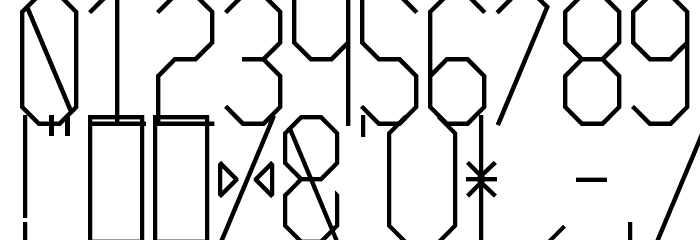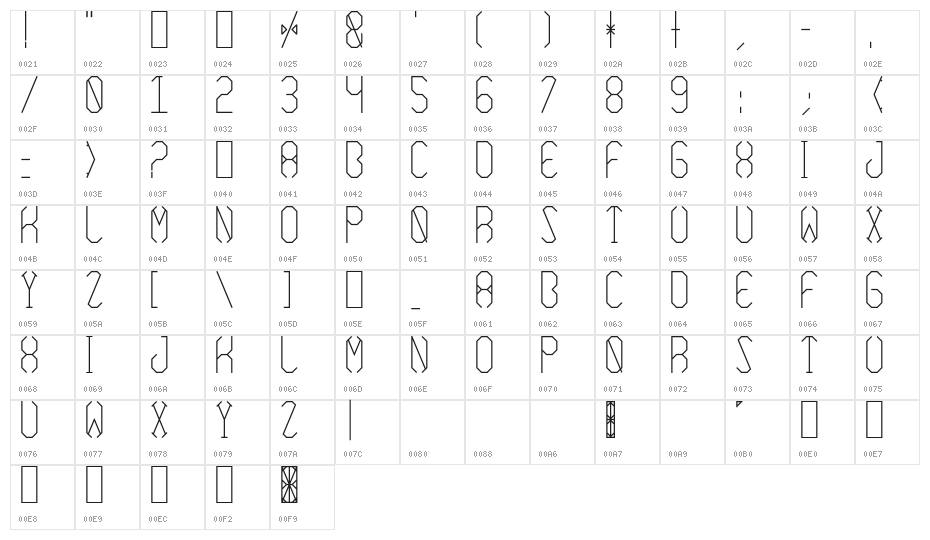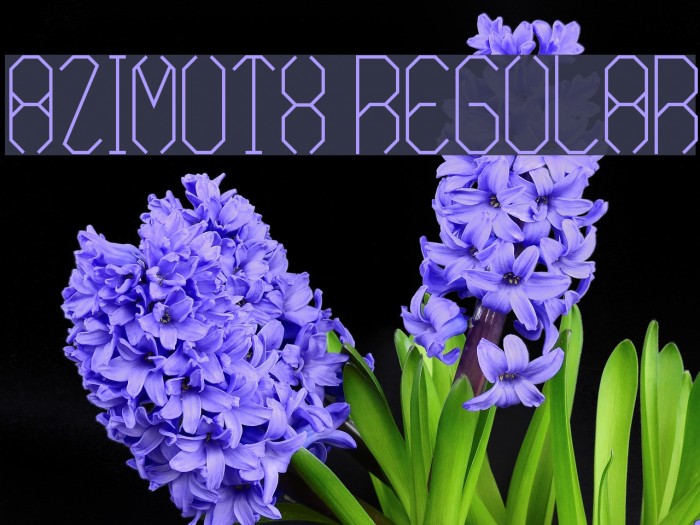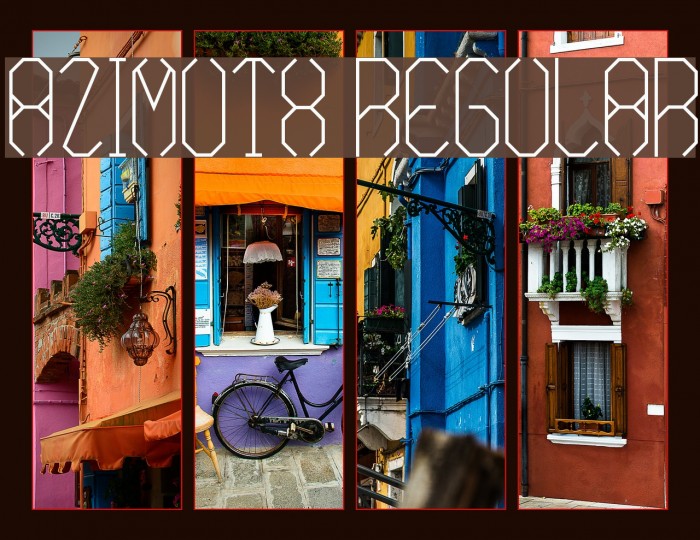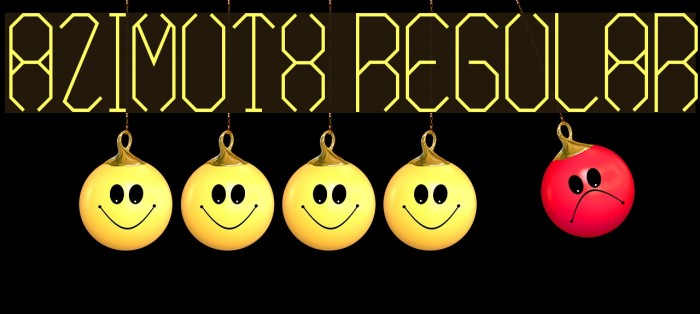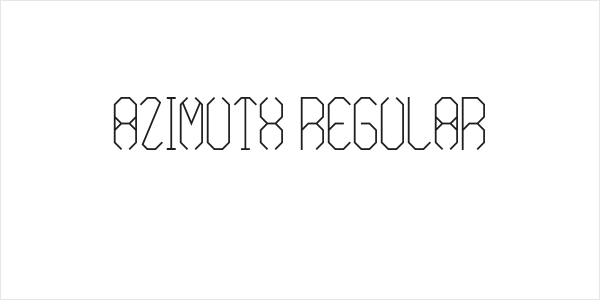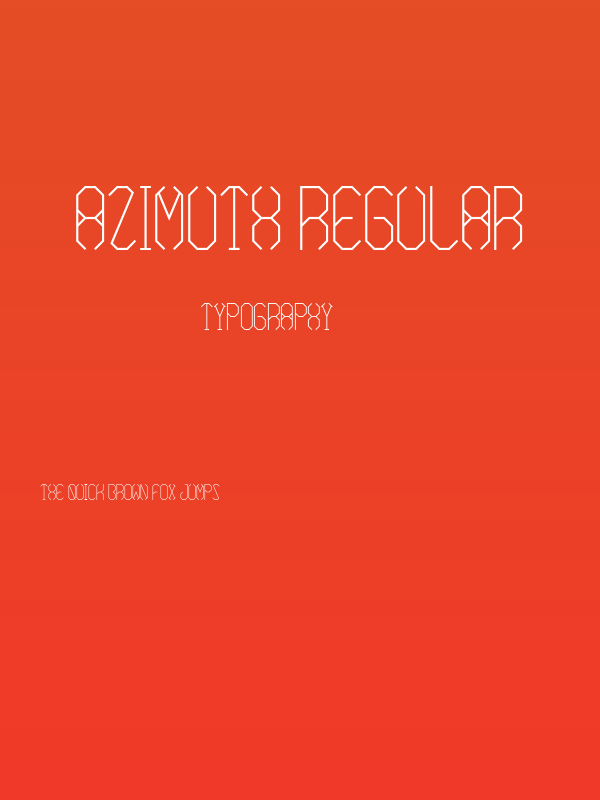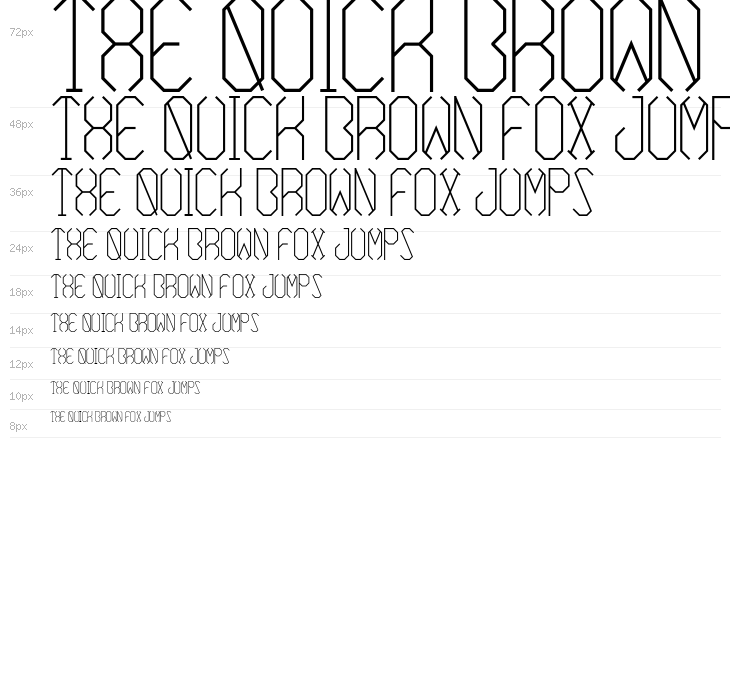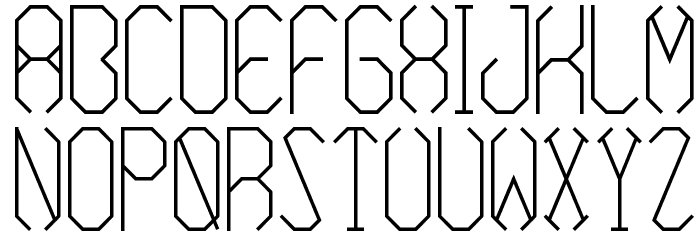
Azimuth Regular Font
Azimuth Regular Description
This font features a geometric and angular design, characterized by its sharp edges and straight lines. Each character is constructed with a consistent stroke width, creating a uniform appearance throughout. The uppercase and lowercase letters maintain a similar structure, emphasizing a modern and futuristic aesthetic. The numerals and special characters follow the same design principles, ensuring cohesion across all elements. The font's unique style makes it stand out, offering a distinctive look that is both bold and eye-catching.